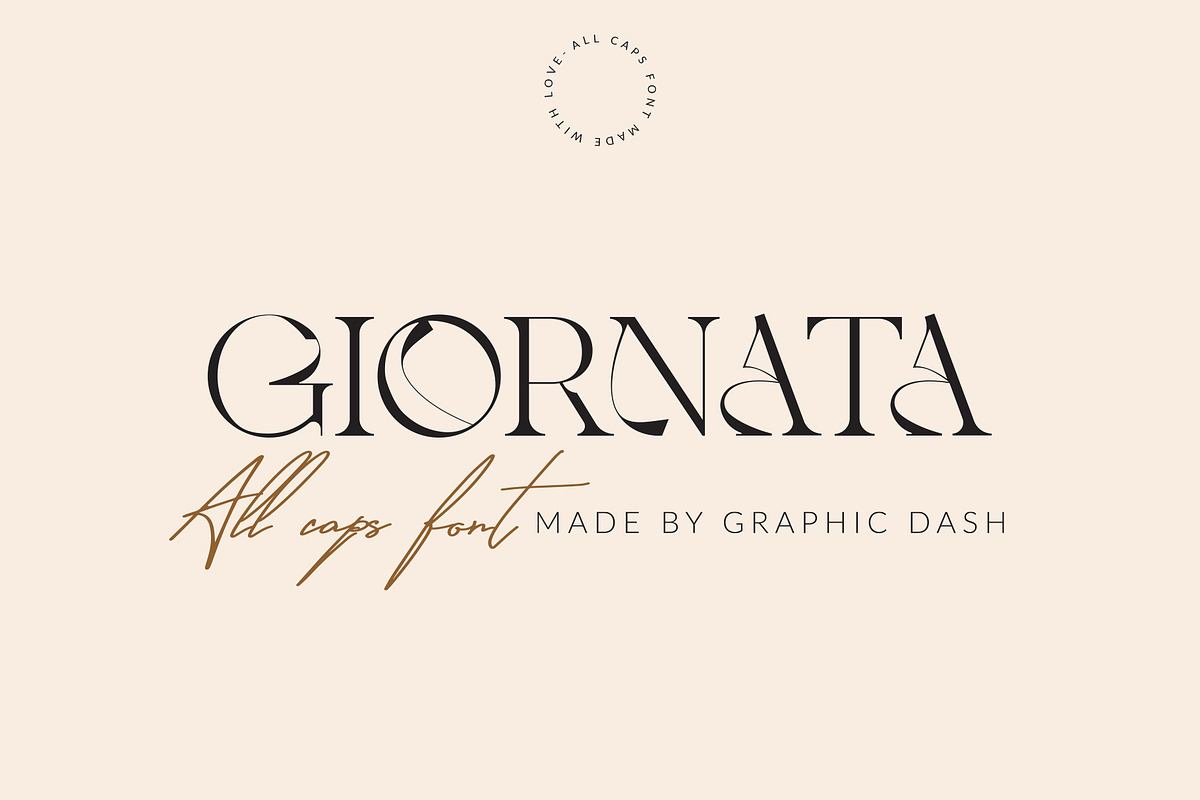
Giornata - All Caps Elegant Font Free Download
Giornata – All Caps Elegant Font Free Download
Giornata – All Caps Elegant Font Free Download is a sophisticated and refined typeface designed to make a bold yet graceful statement. Featuring sharp lines, balanced proportions, and a clean all-caps style, this font is perfect for luxury branding, magazine titles, fashion lookbooks, wedding stationery, and upscale product packaging.
Its minimalist elegance and timeless design give Giornata – All Caps Elegant Font Free Download a polished, editorial feel—ideal for projects where high-end aesthetics and strong visual identity matter. The font works beautifully in both print and digital formats, adding professionalism and poise to every letter.
Make your designs shine with the refined charm of Giornata – All Caps Elegant Font Free Download—a must-have for creatives who value class, clarity, and high-impact simplicity.